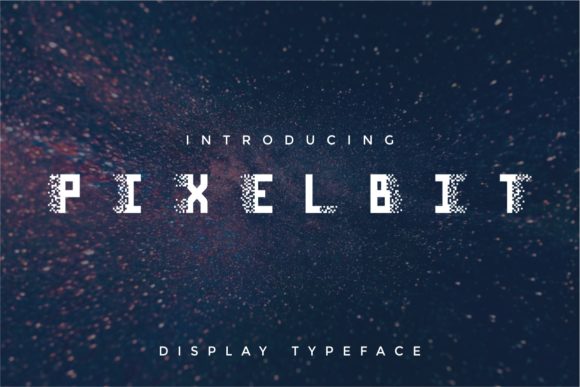
Venture into the extraordinary realm of digital aesthetics with Pixel Bit Typeface, a display font family that will electrify your creative endeavors with its captivating fusion of retro and contemporary design. Inspired by the distinct charm of pixelated screens and the ever-evolving world of computer graphics, Pixel Bit is a typographic masterpiece that will catapult your designs into the future.
With its sharp edges and striking geometric forms, Pixel Bit exudes an undeniable futuristic aura that will leave an indelible mark on your audience. Each letterform is meticulously crafted to evoke the nostalgia of classic video games and the boundless possibilities of the digital realm. Whether you're crafting captivating logos, eye-catching headlines, or immersive user interfaces, Pixel Bit will elevate your designs to new heights of innovation.
Immerse yourself in a world where creativity knows no bounds as you explore the diverse range of styles that Pixel Bit has to offer. From the bold and commanding Regular weight to the sleek and refined Thin variant, Pixel Bit adapts seamlessly to a multitude of design projects, ensuring that your message always shines through with unparalleled clarity and impact. Unleash your imagination and let Pixel Bit be your guide as you embark on a journey of typographic exploration that will redefine the boundaries of your creative potential.